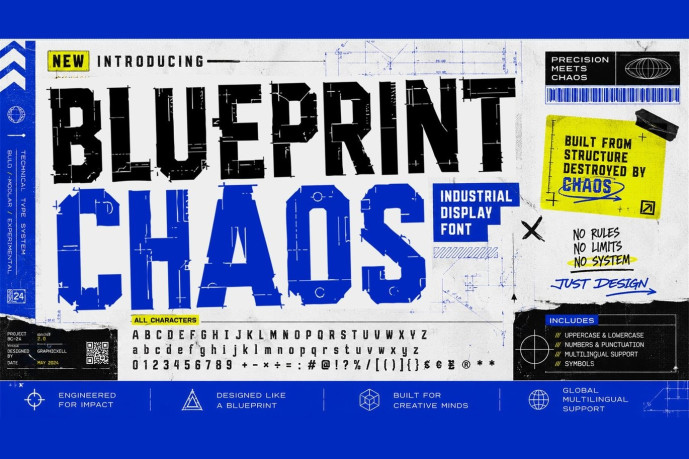
Blueprint Chaos Font
Designer: artstoreid
Blueprint Chaos Font is a bold industrial display typeface inspired by architectural plans, technical diagrams, and controlled visual disturbances. Combining geometric construction, modular shapes, and technical imperfections, this typeface creates a powerful balance between precision and chaos.
Perfect for creative brands, packaging, editorial design, music illustrations, and futuristic visual systems.
223 glyphs included uppercase letters, lowercase letters, numbers, punctuation marks and a multilingual international language.